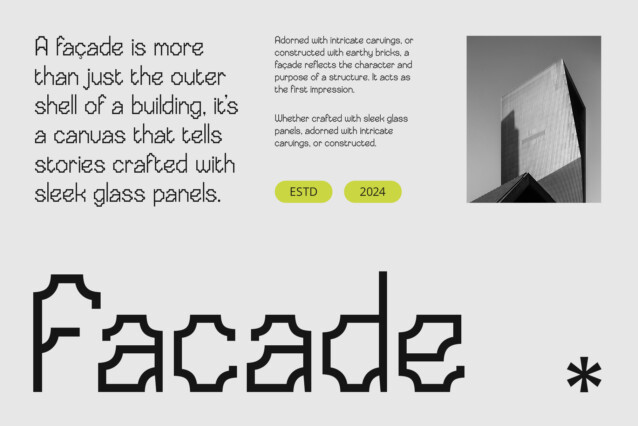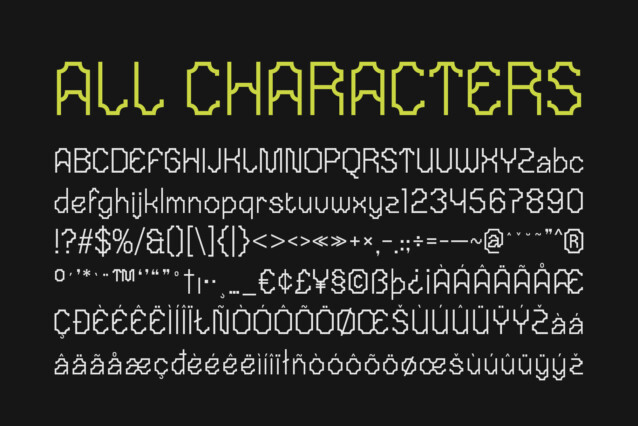
CS Rushed Font
CS Rushed Font is a futuristic techno display font designed to embody the essence of modernity, innovation, and technological progress. With its sharp angles, clean lines, and geometric shapes, this font takes inspiration from cutting-edge technology and digital advancements. Features like disconnected letters, modular styles, and electronic accents enhance its sleek, high-tech appearance, making it perfect for designs that demand a bold, futuristic edge.